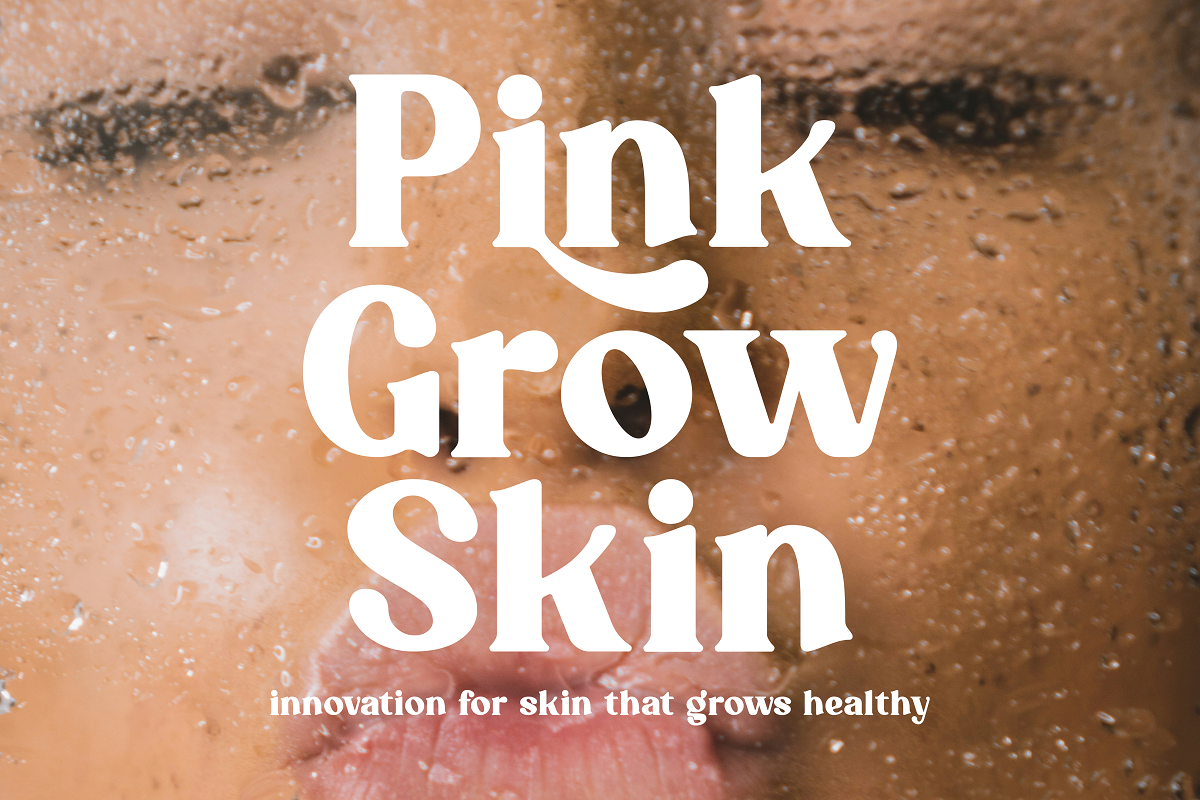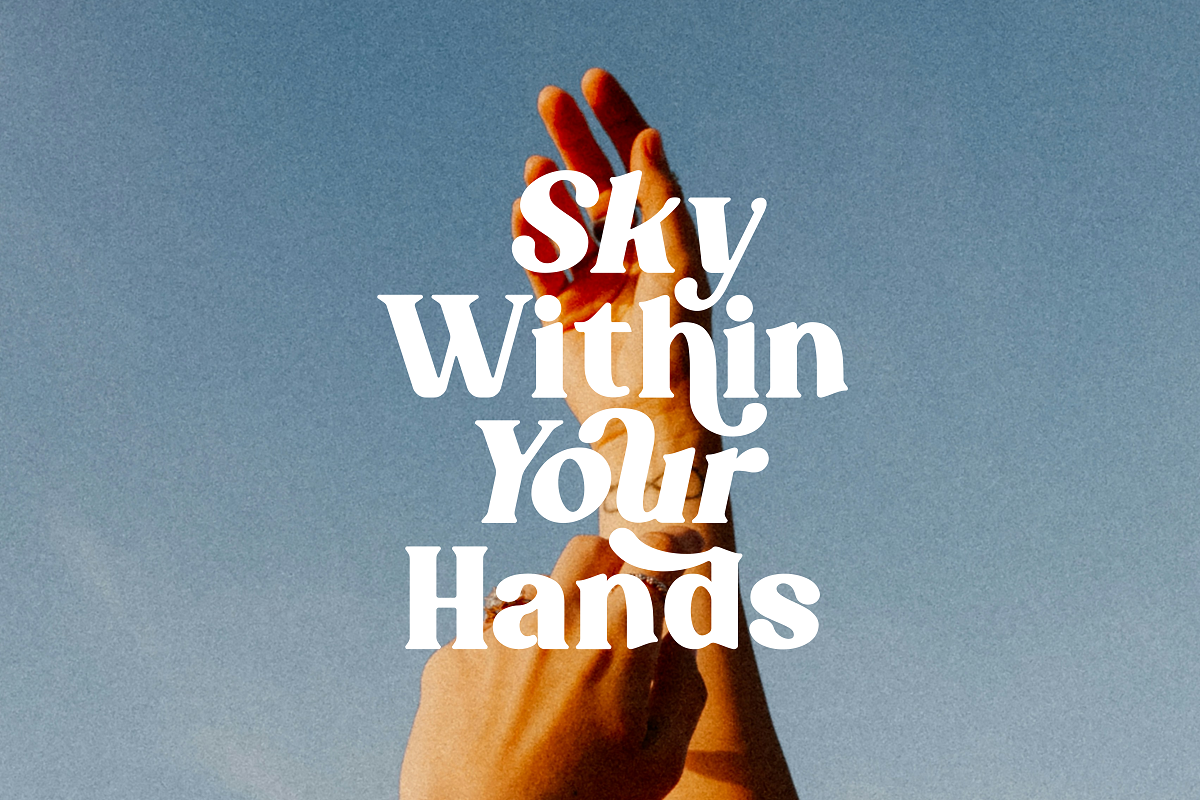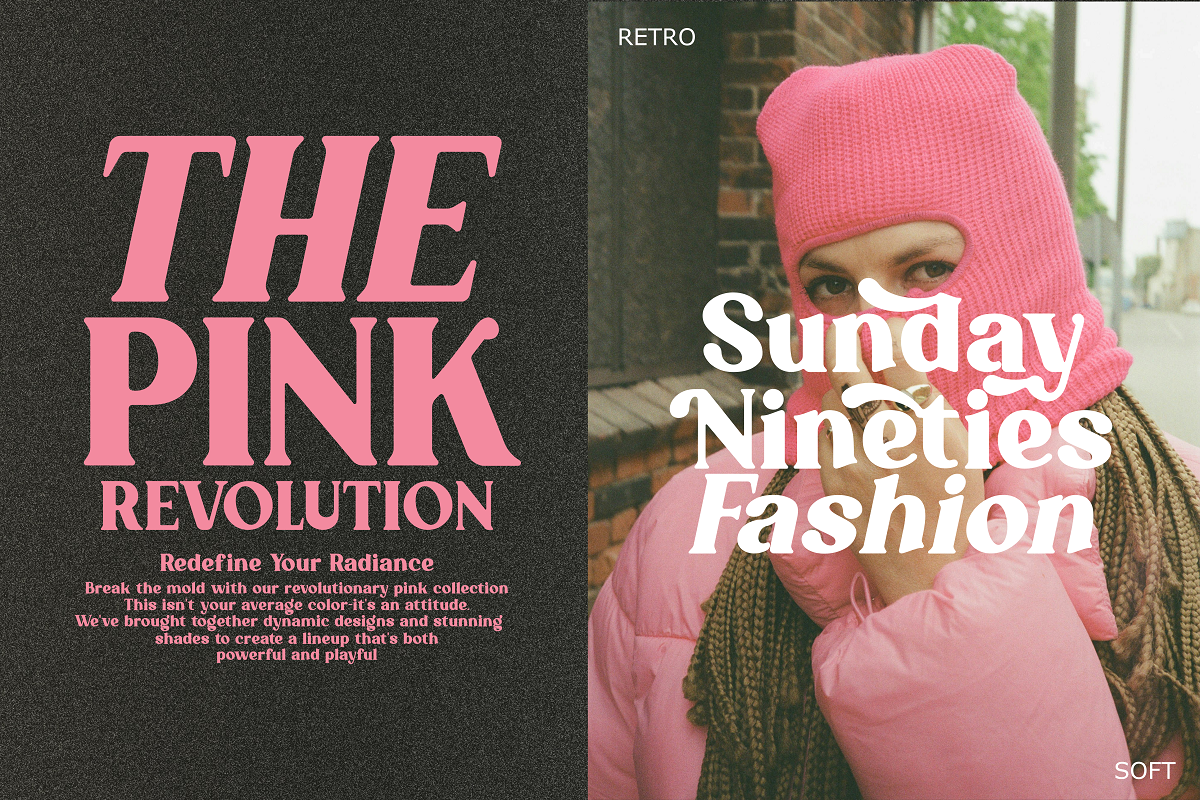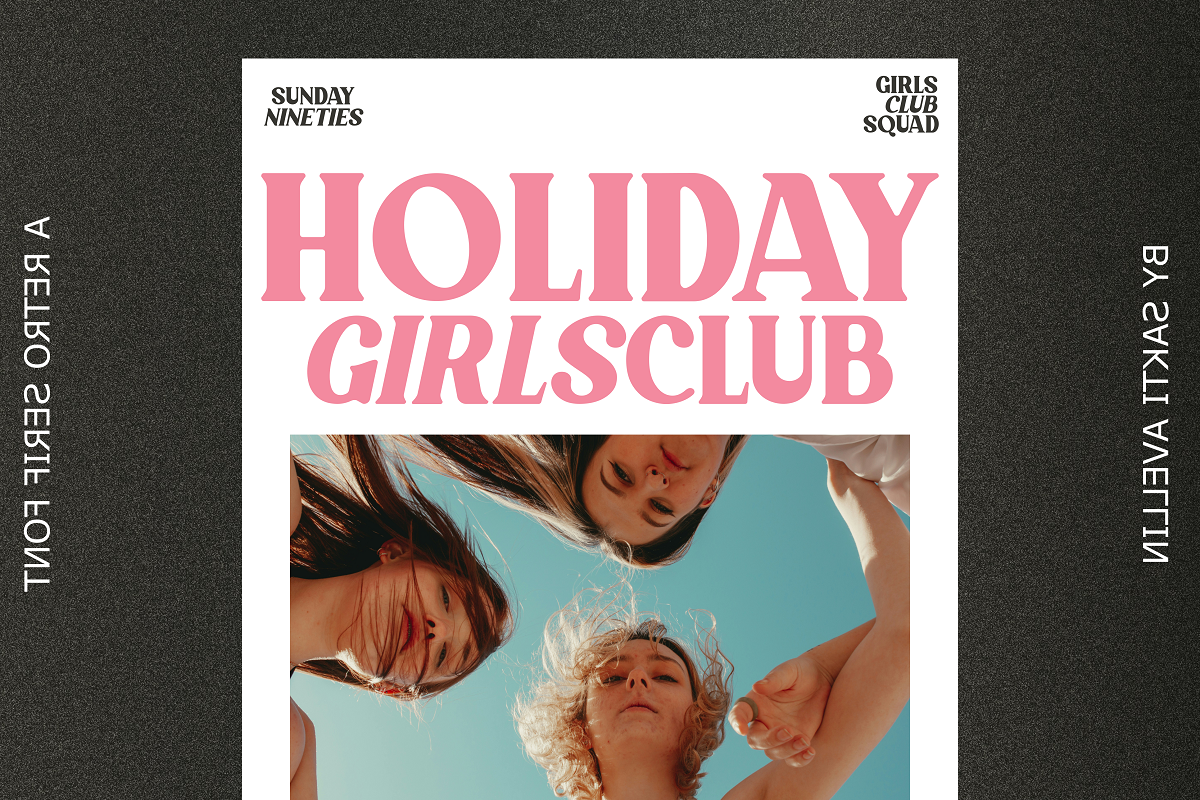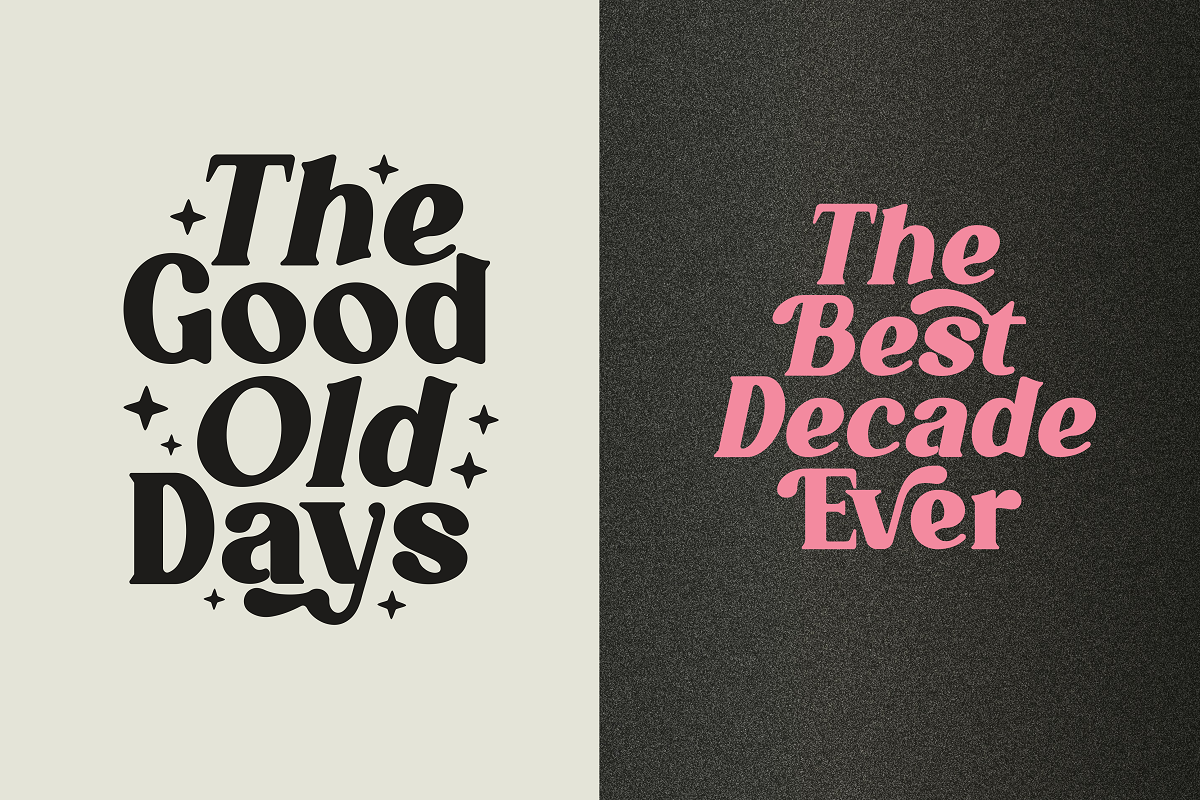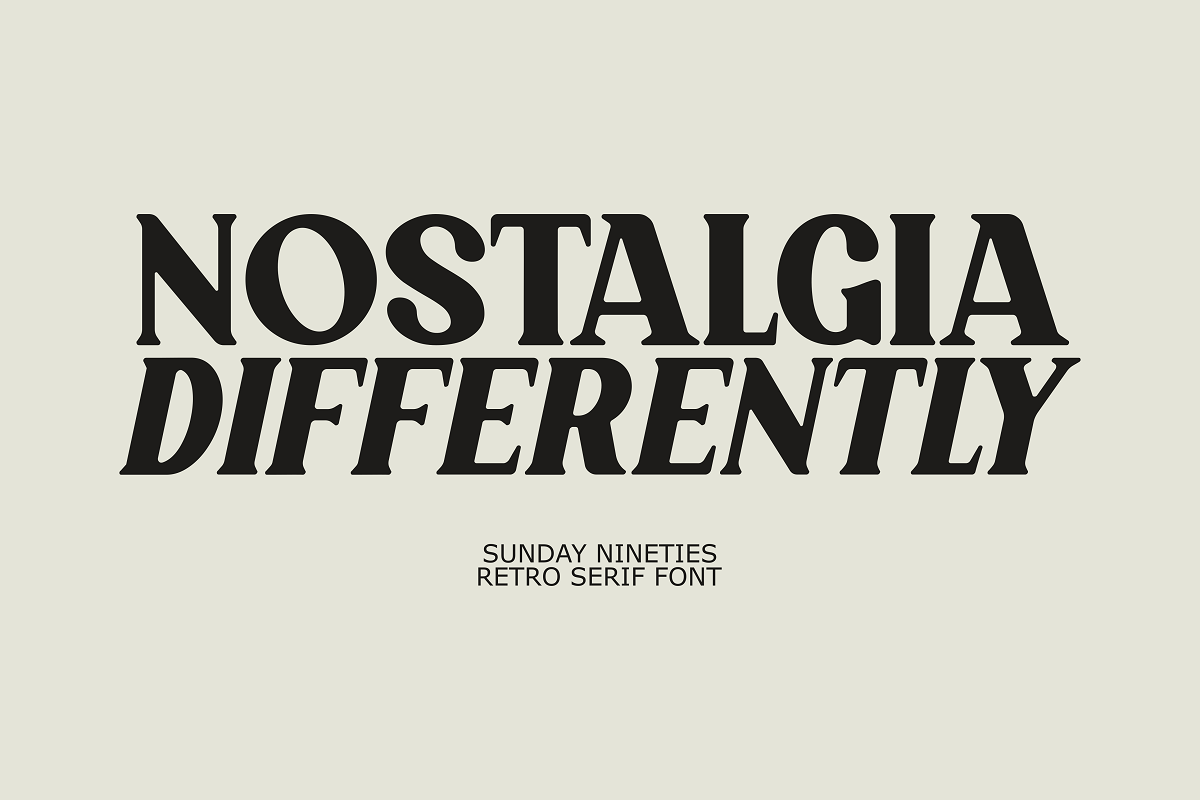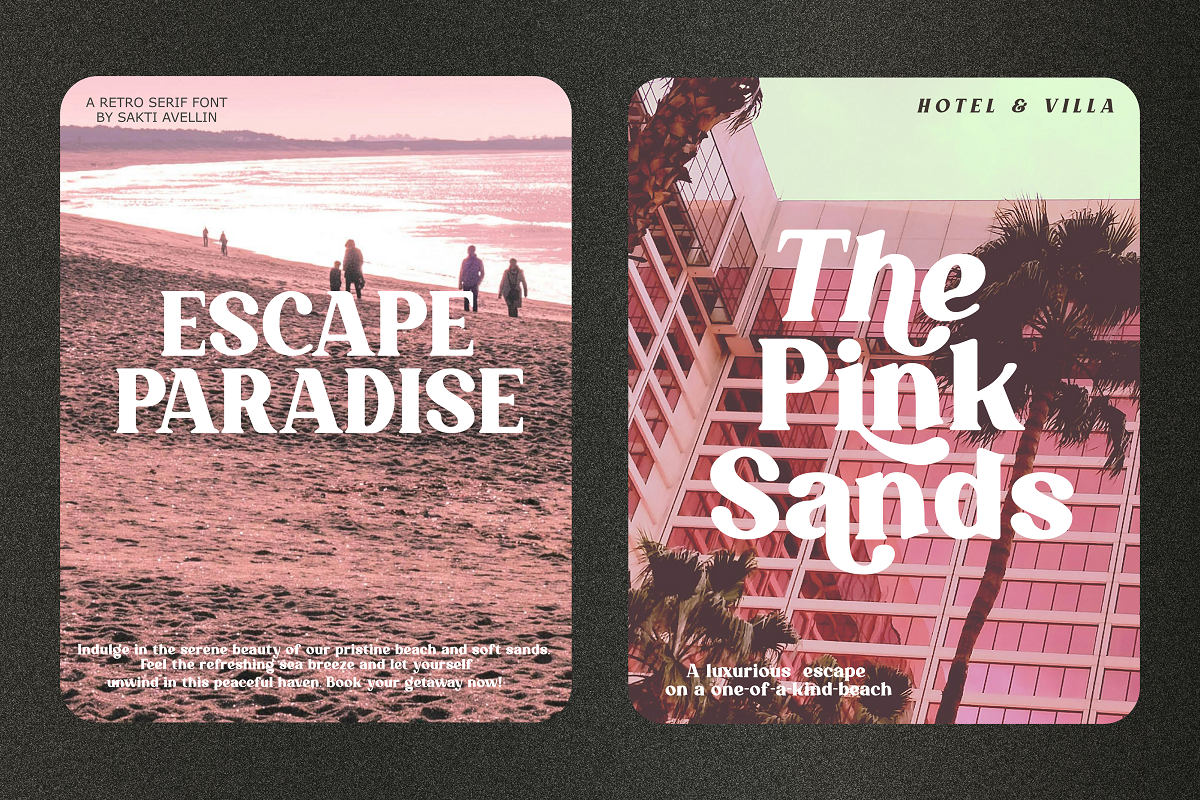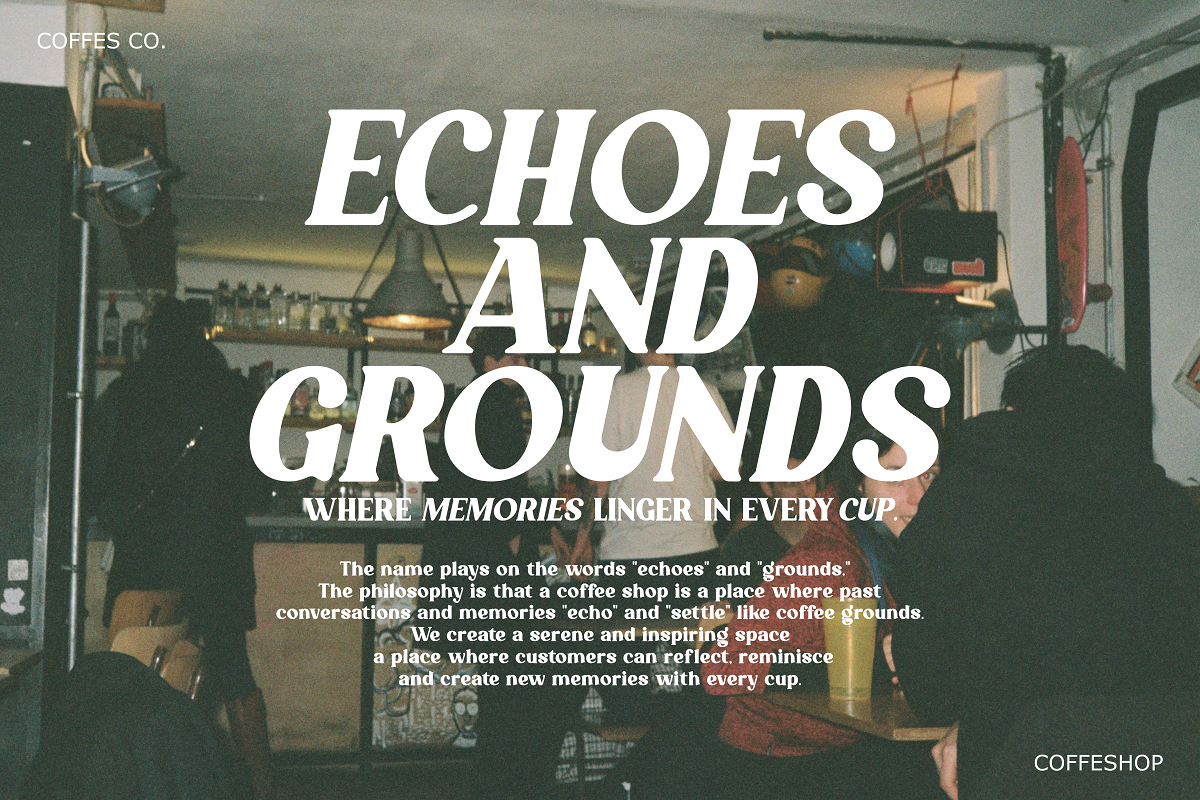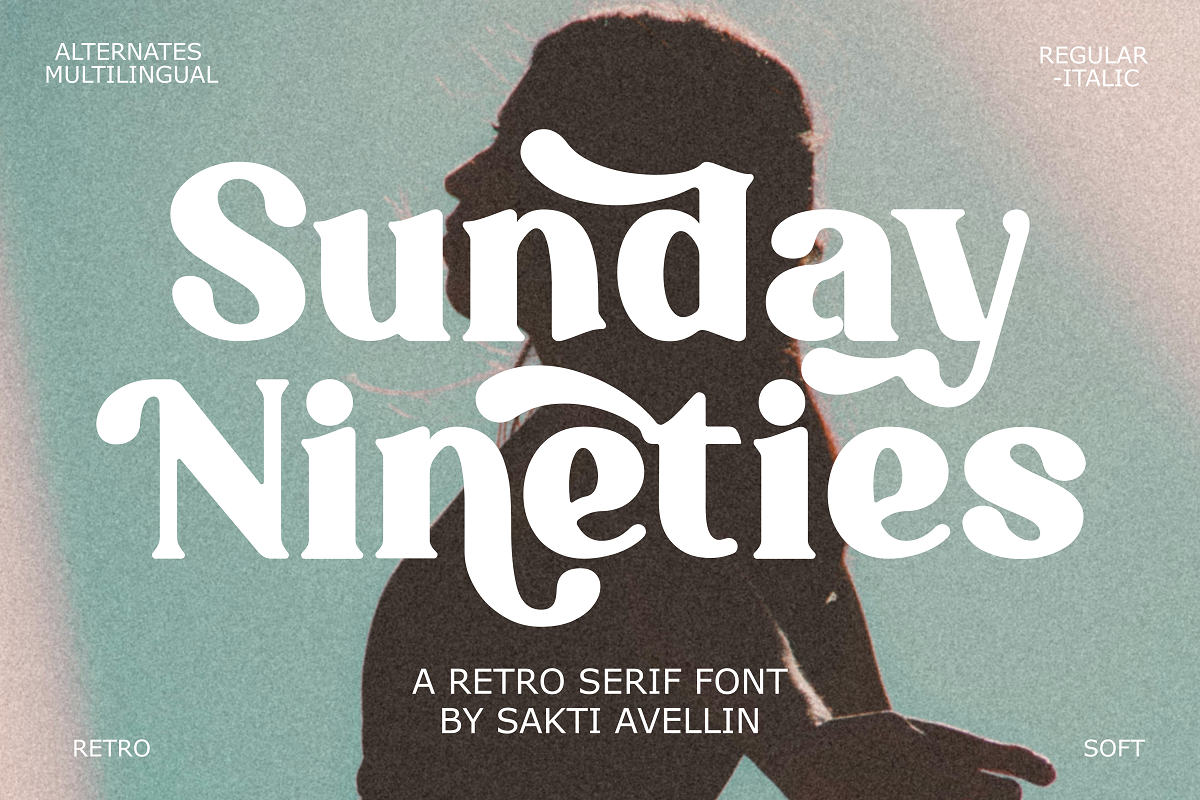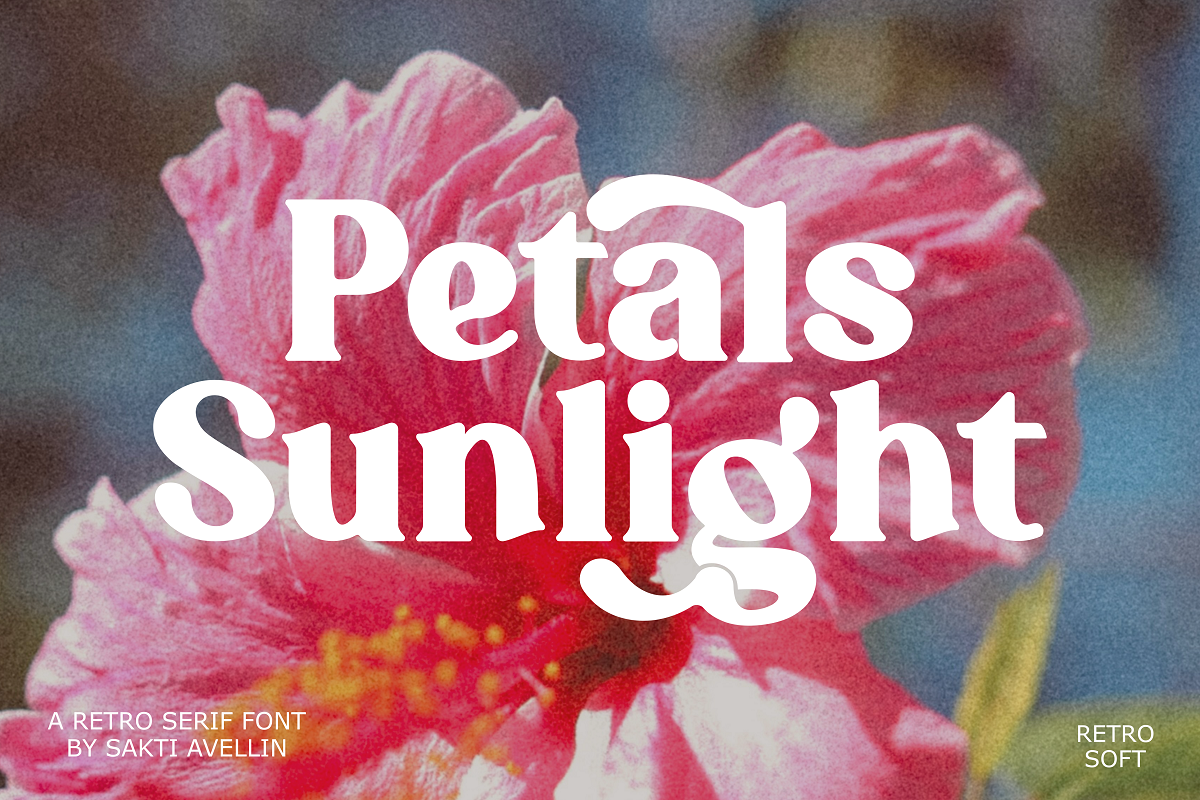
Sunday Nineties - Retro Serif Font
Sunday Nineties is a beautiful and nostalgic retro serif font designed to capture the soulful and soft aesthetic of the late 20th century. This versatile display typeface features elegant curves, high-contrast lines, and a gentle, bubbly silhouette, making it an ideal choice for retro branding, vintage-inspired logos, editorial layouts, and chic social media graphics. Equipped with stylistic alternates and multilingual support, Sunday Nineties offers both Regular and Italic styles to provide endless creative possibilities for posters, packaging, and premium apparel designs. Whether you are aiming for a classic look or a modern-retro vibe, this soft serif font adds a timeless and sophisticated touch to every creative project.